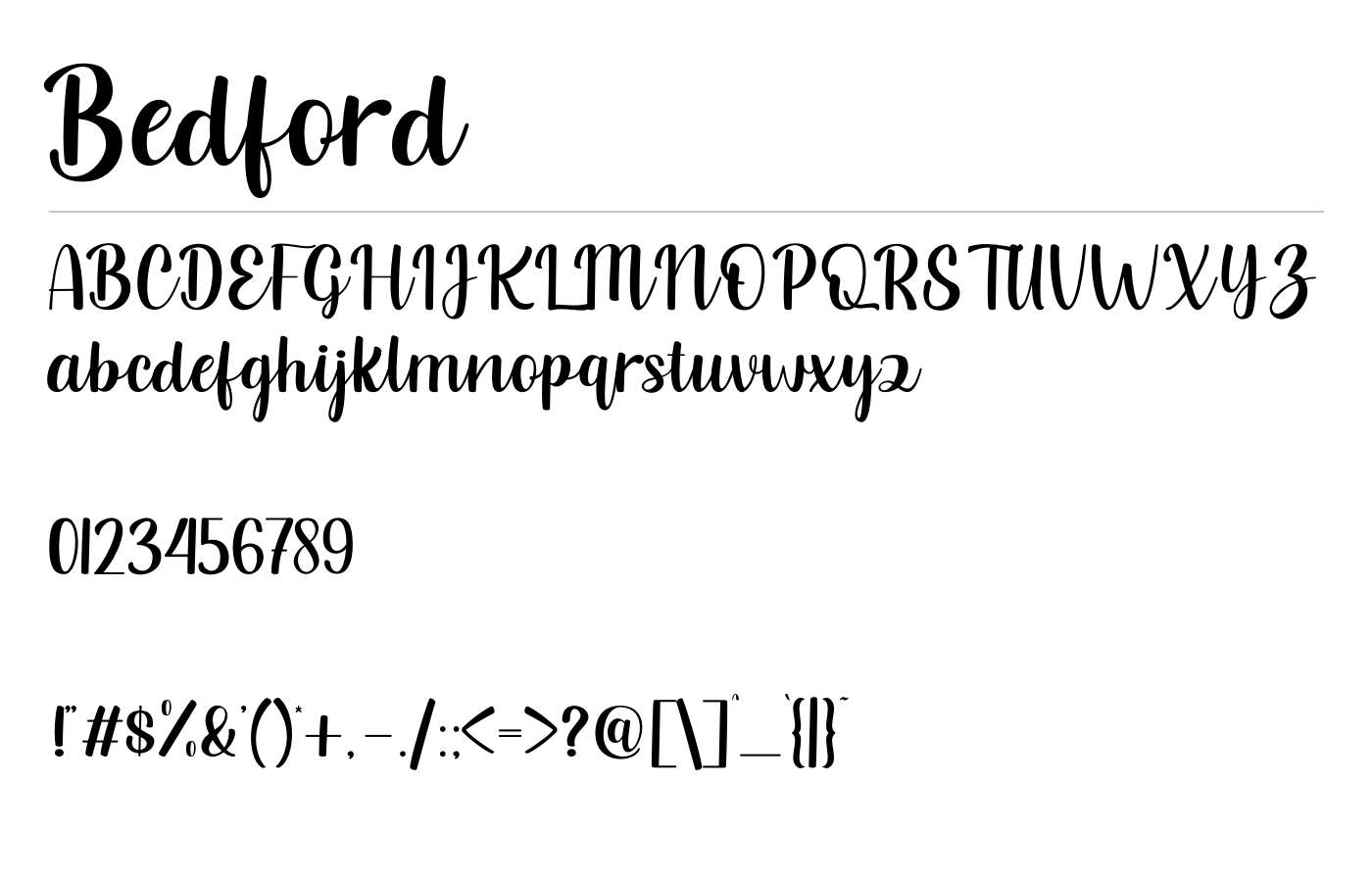
Bedford is a charming script-style font featuring smooth, flowing strokes with a warm, handwritten feel. Its medium weight and tall, narrow letterforms create an elegant yet approachable look, perfect for branding, invitations, and headlines that require a friendly but sophisticated touch. This font works well in creative and personal designs where warmth and personality are key.
Bedford Font
About Bedford Font
| Font family | Bedford Font |
| Designer | Andri Ardianto + Madatype Studio |